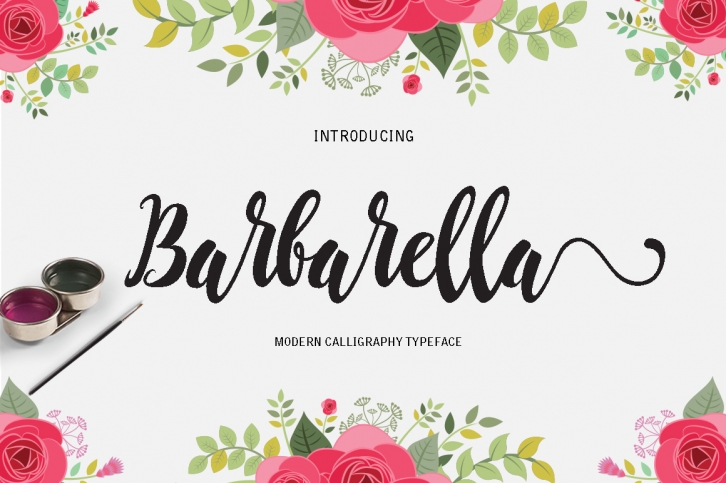
Barbarella FONT Download
Barbarella is a gorgeous font that was realeased on May 4, 2016. The font can be used in many style contexts and design environments. Perfect for invitations, magazines, websites, logos, and more! It was designed by Dantico and the file size is 13.77 MB. Thanks for checking out this font!